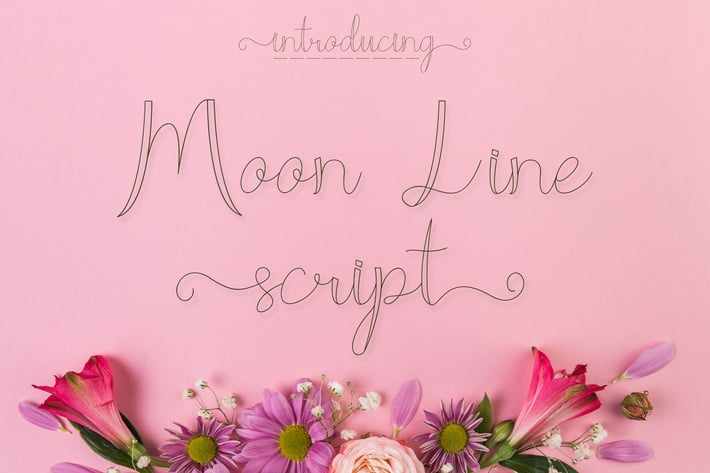
Moon Line Script - Line Script Font
Introducing Moon Line Script - Line Script Font, beautiful font for crafts, branding, invitations, cloths design and many more.
Uppercase,
Lowercase,
Numbers,
Punctuation/Symbols,
Multilingual Support.
a to z lowercase alternates
Ligatures and some alternates